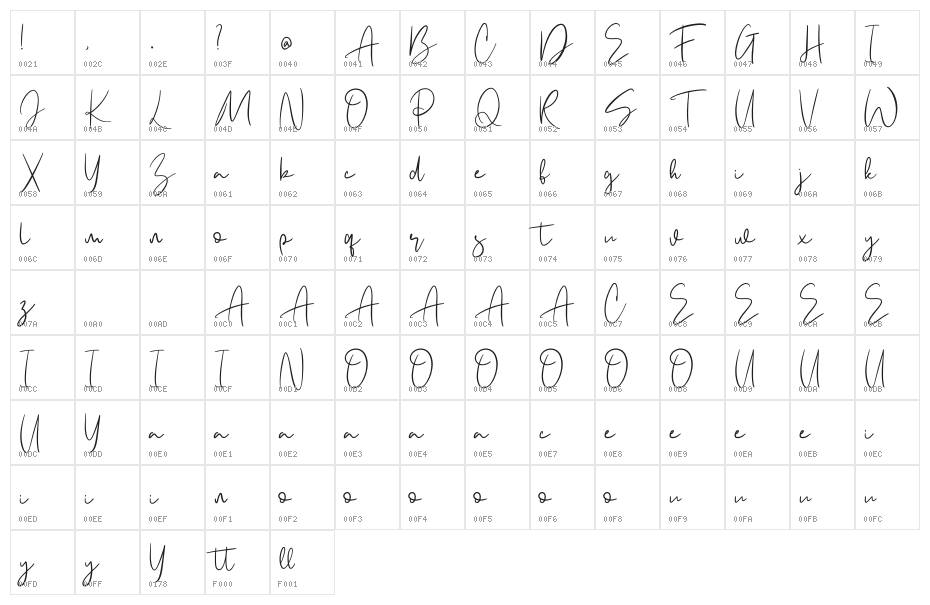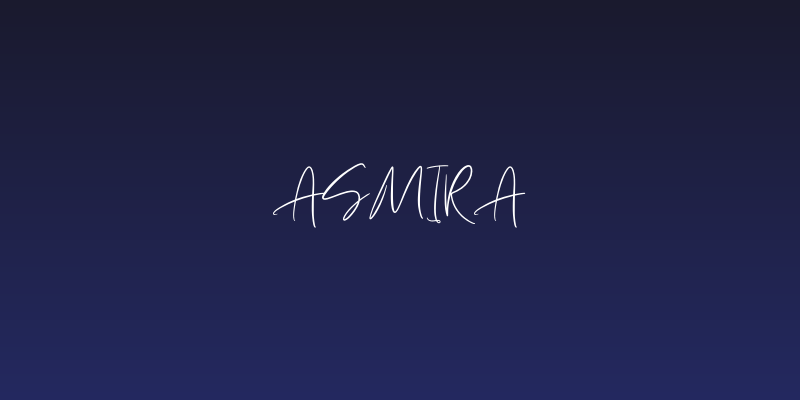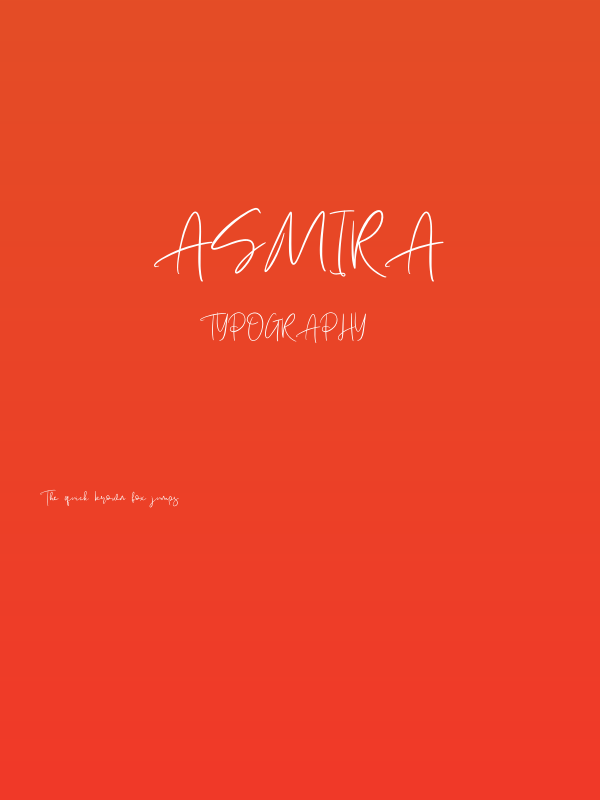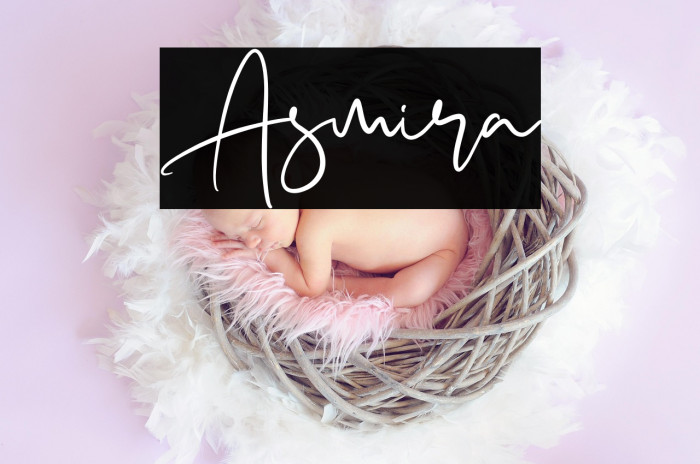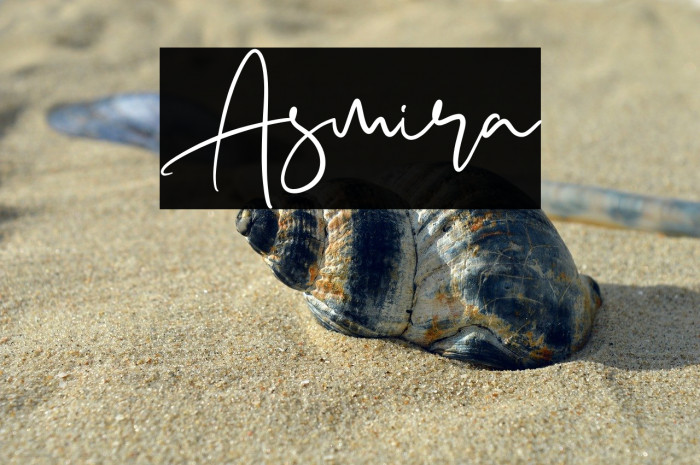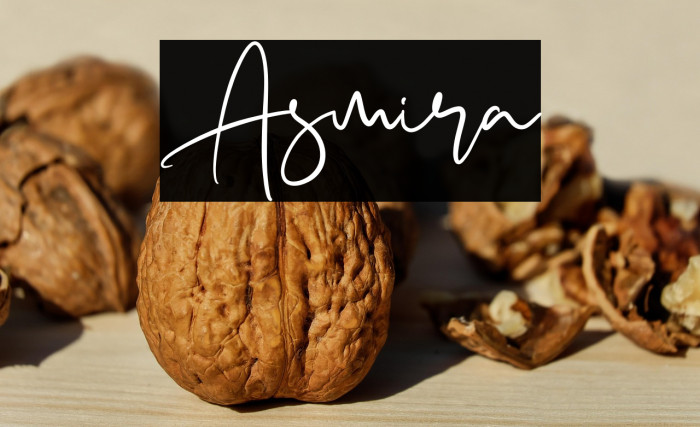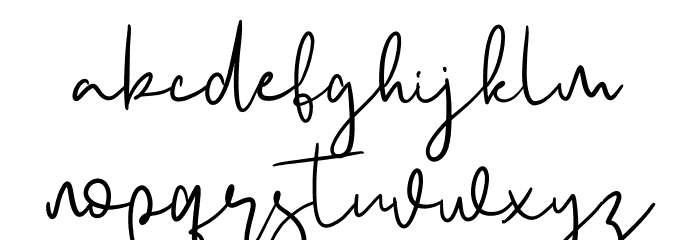
Asmira Font
Asmira Description
This font features a handwritten, cursive style with a casual and flowing appearance. The uppercase letters are tall and slightly slanted, giving a sense of elegance and movement. The lowercase letters maintain a consistent flow, with smooth connections between characters, enhancing the script-like quality. The strokes are thin and delicate, contributing to a light and airy feel. This font lacks uniformity in stroke width, adding a personal and organic touch. The overall design is modern yet retains a classic handwritten charm, making it versatile for various creative applications.